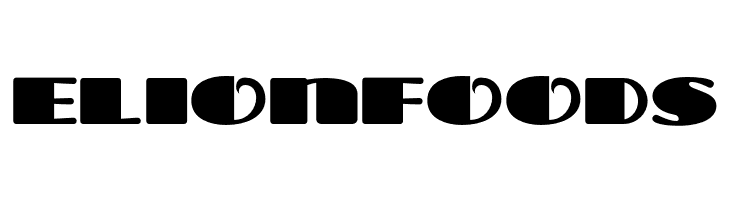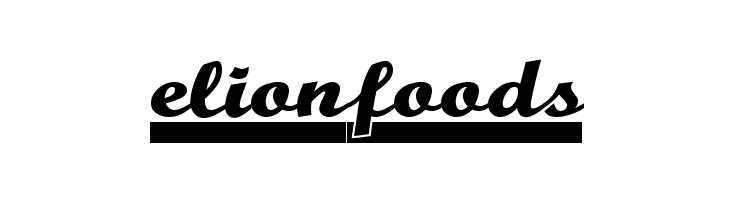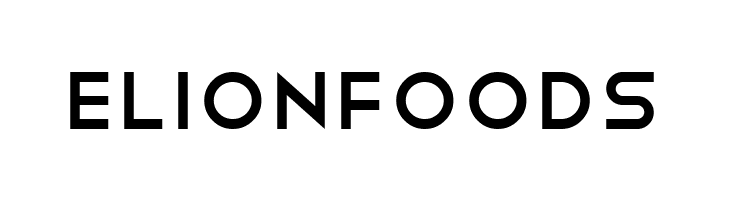
• Tara Bulbous NF
A bold, rounded font with a playful and modern design.
• TaraBulbousNF
A bold, playful font with exaggerated curves and a retro-modern appeal.
• tartarsauce_erc
A bold, cartoonish font with irregular, playful shapes and a hand-drawn feel.
• tasapainoaisti
A raw, edgy, hand-drawn font with jagged, dynamic characters.
• tasapainoaisti_huimaus
A chaotic, hand-drawn font with irregular, jagged strokes and a graffiti-like style.
• tasapainoaisti_iso
A bold, hand-drawn font with a raw, artistic style.
• Team Spirit NF
A bold, cursive font with a shadow effect, perfect for decorative and branding uses.
• TeamSpiritNF
A bold, dynamic script font with elegant curves and a strong presence.
• TechnoOSix
A futuristic, geometric font with characters enclosed in circles, offering a techno-inspired look.
• Telegrafico
A modern, geometric monospaced font with a clean and structured design.